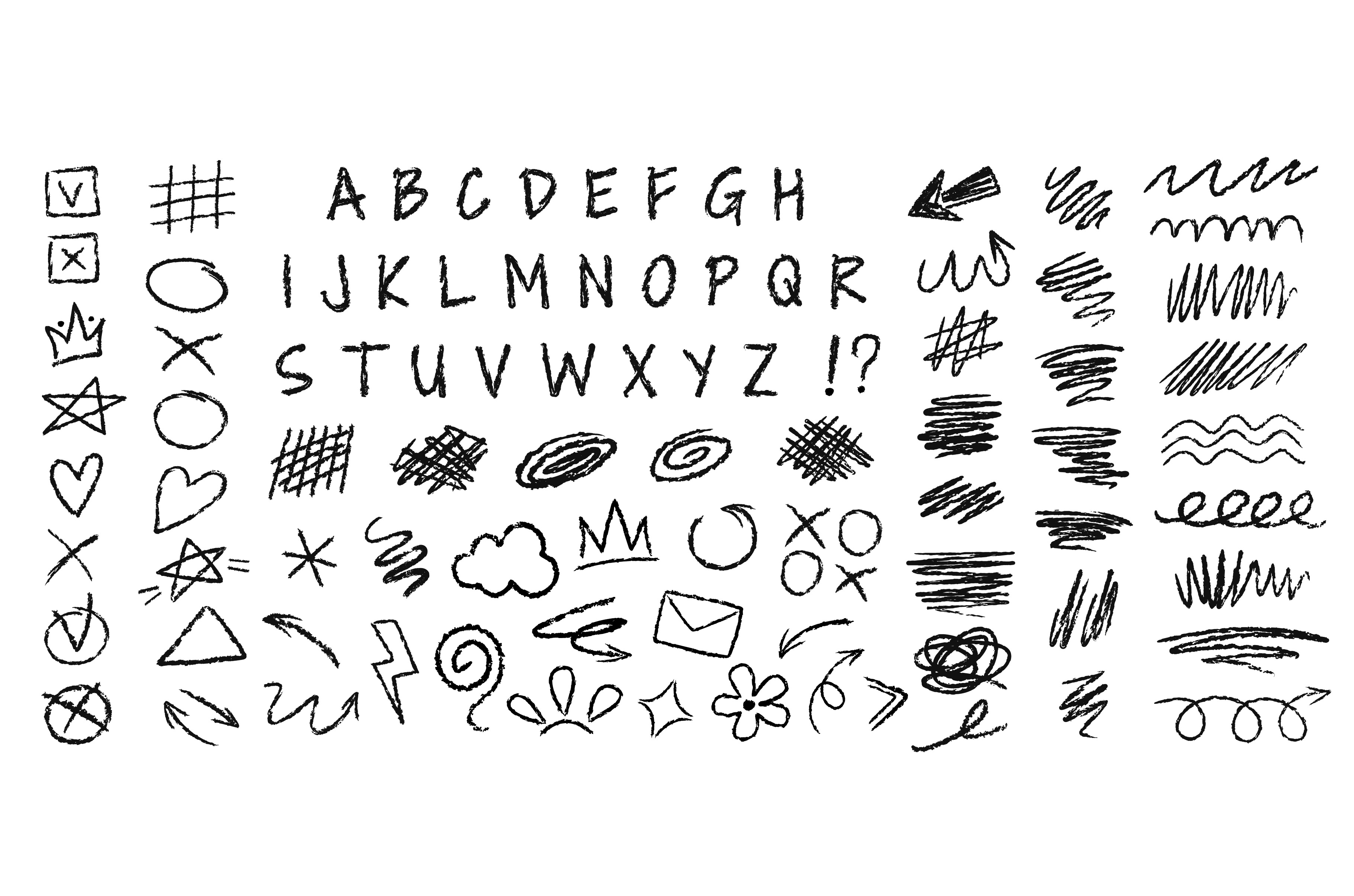
Charcoal doodles. Crayon font
Charcoal doodles. Crayon font, scribble squiggles, sketch check marks and scrawl arrows. Freehand alphabet letters with grunge texture, hand drawn scribbles and scrawl elements vector set.